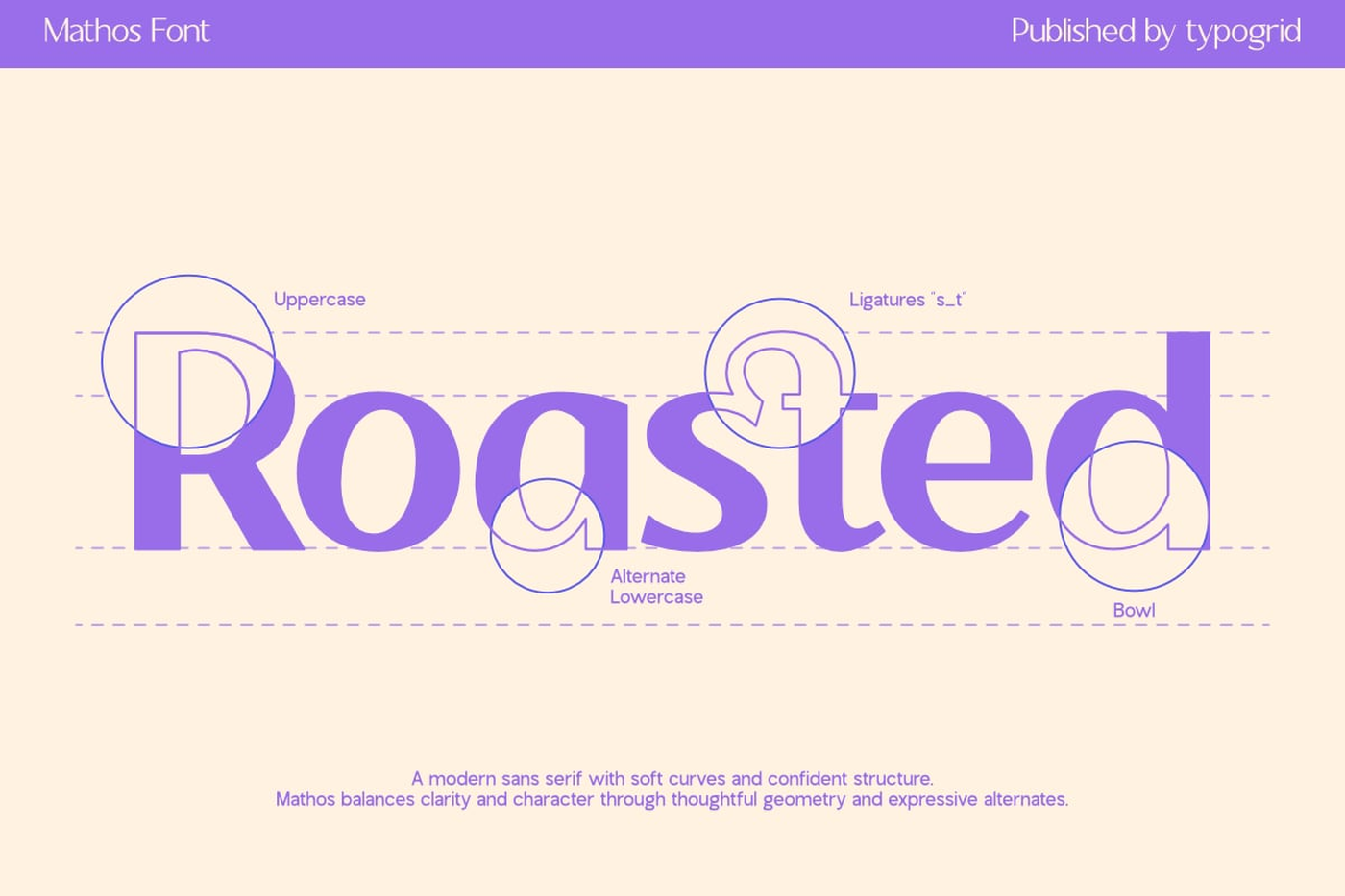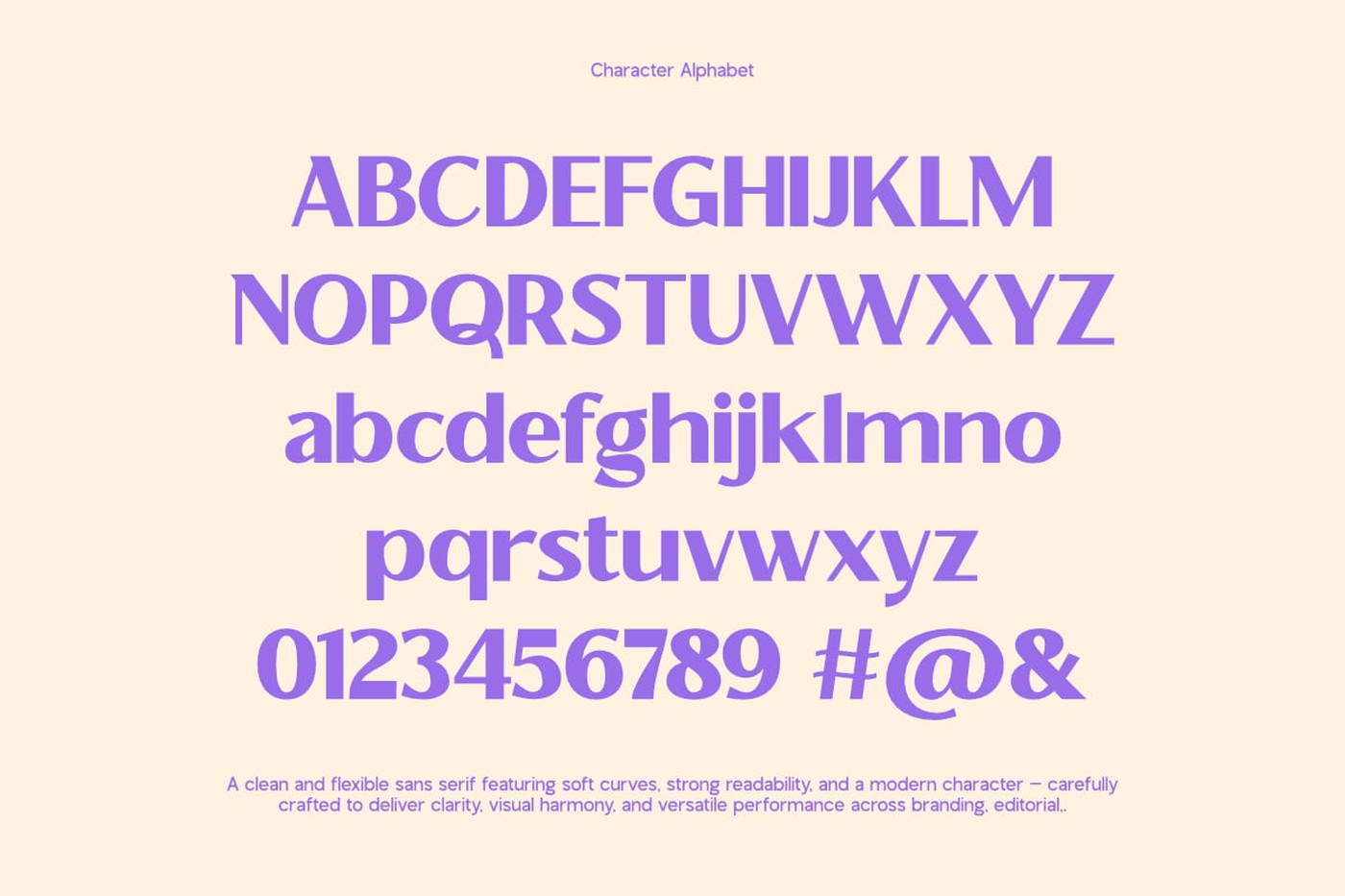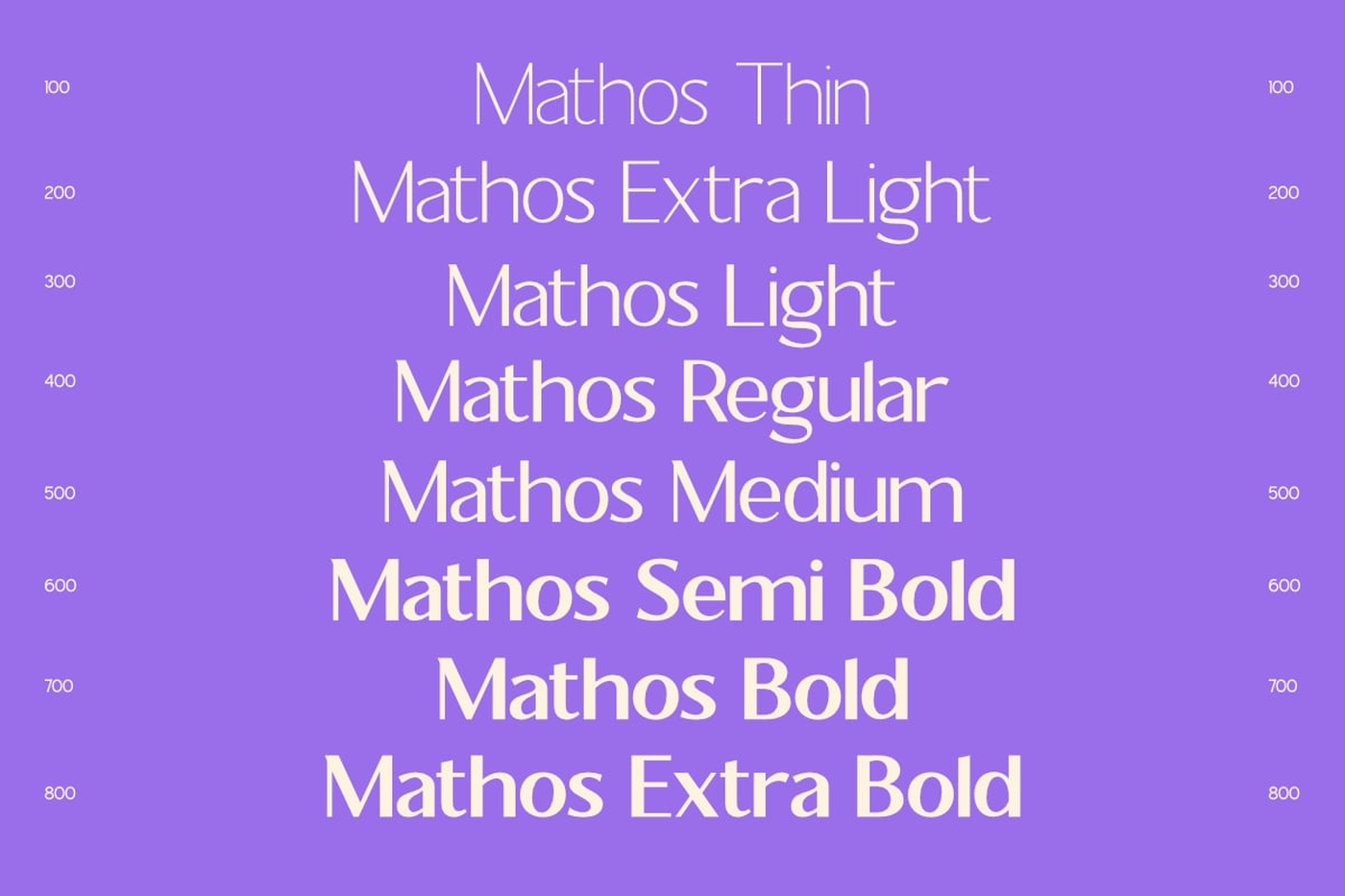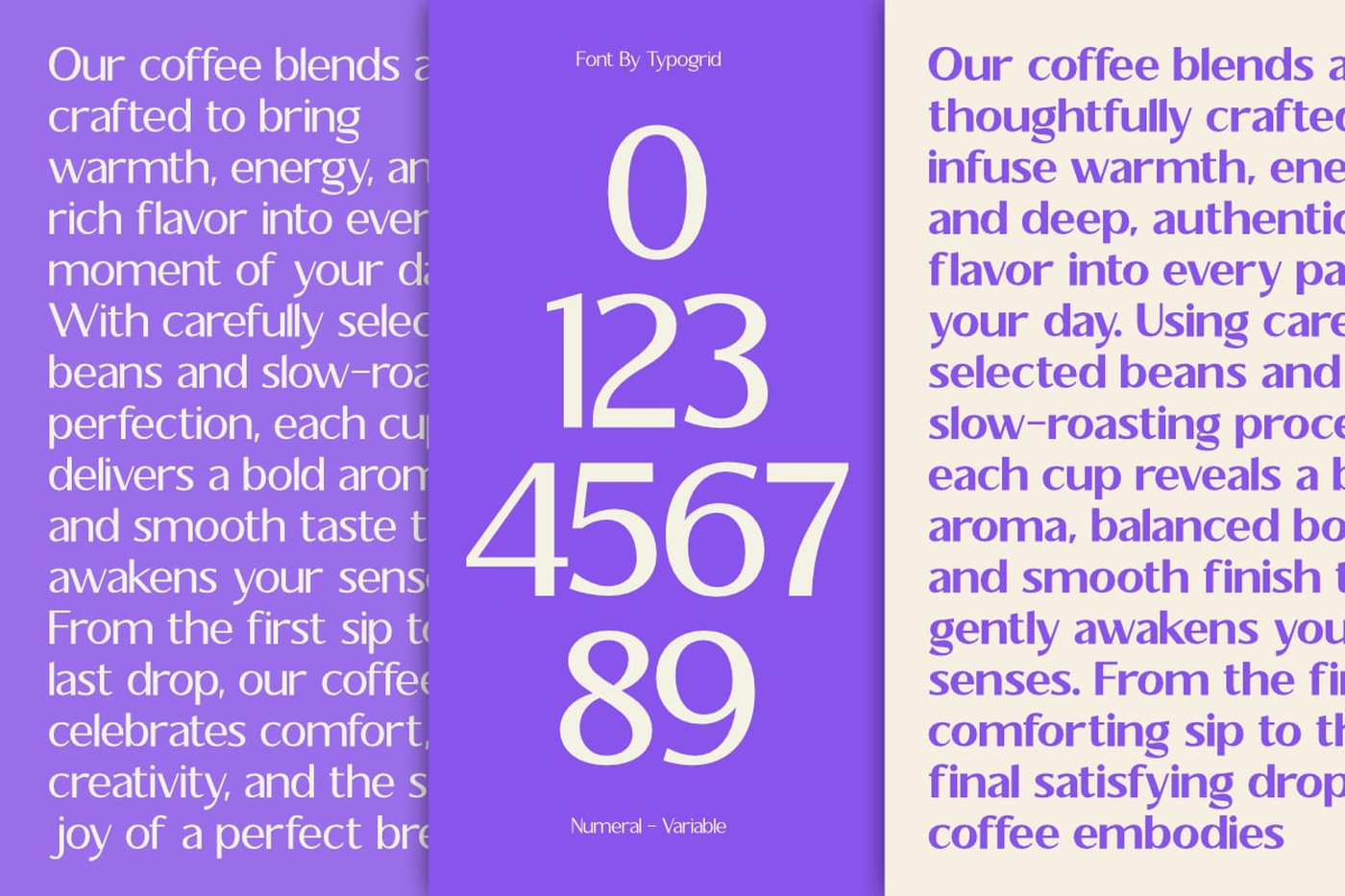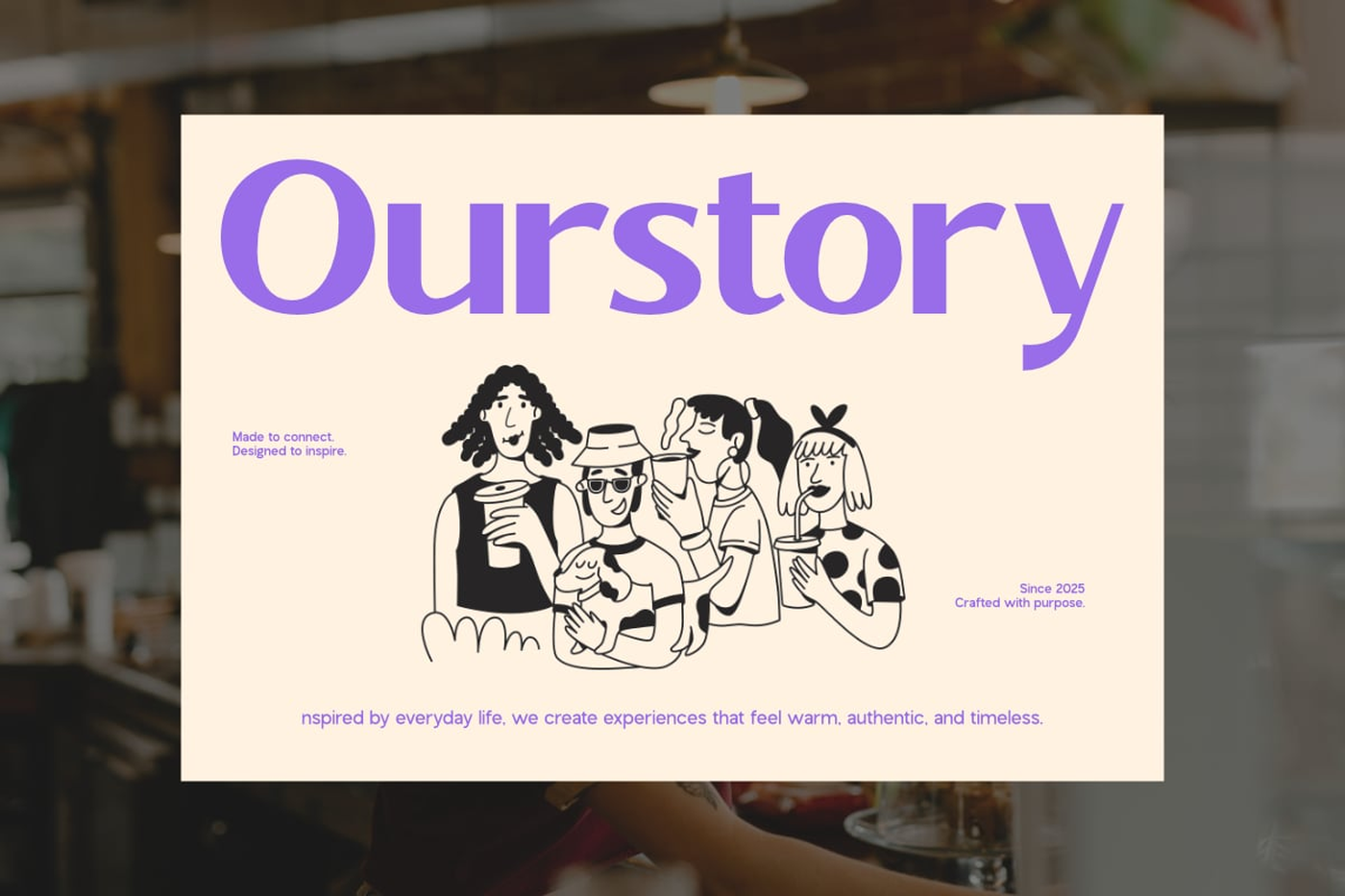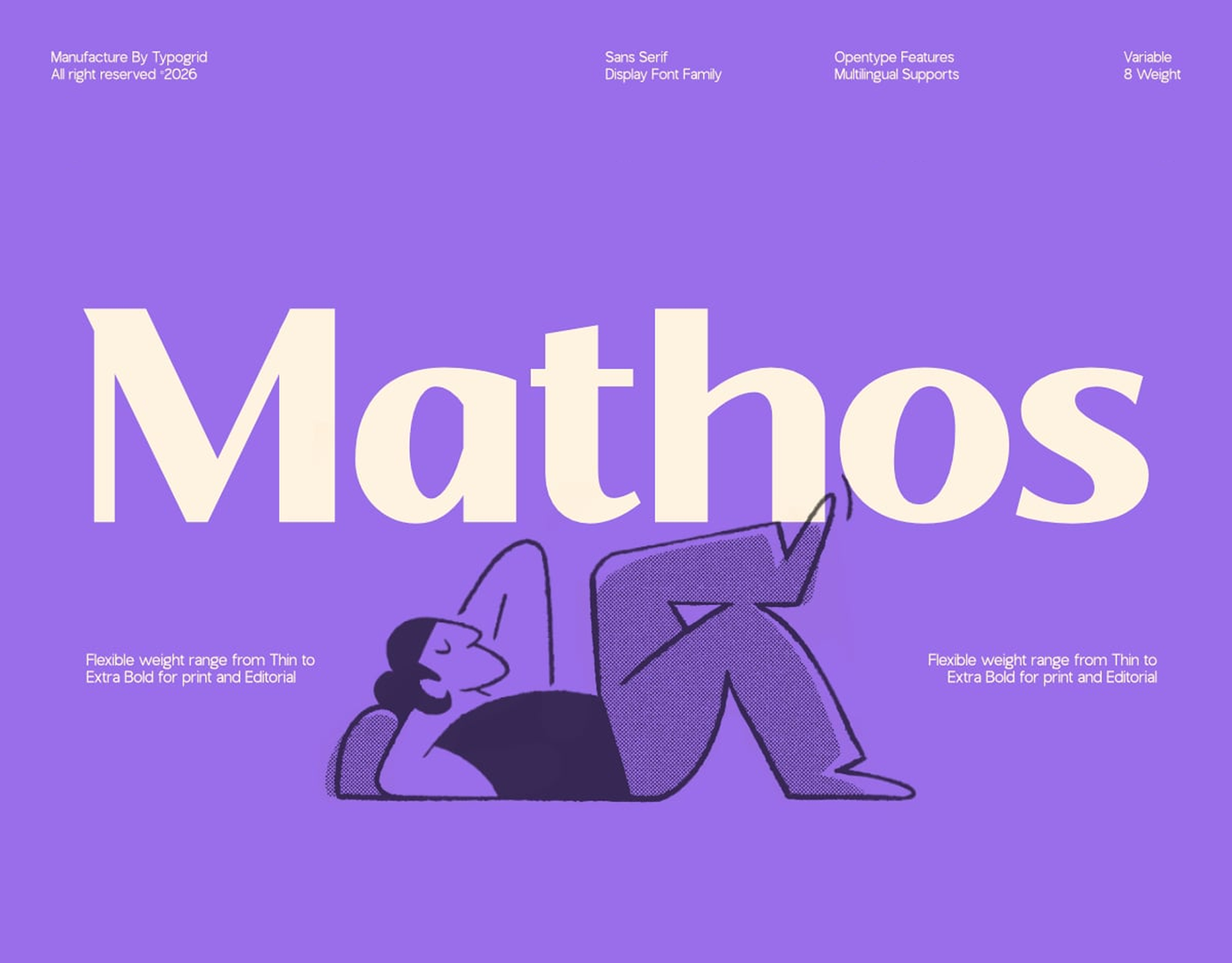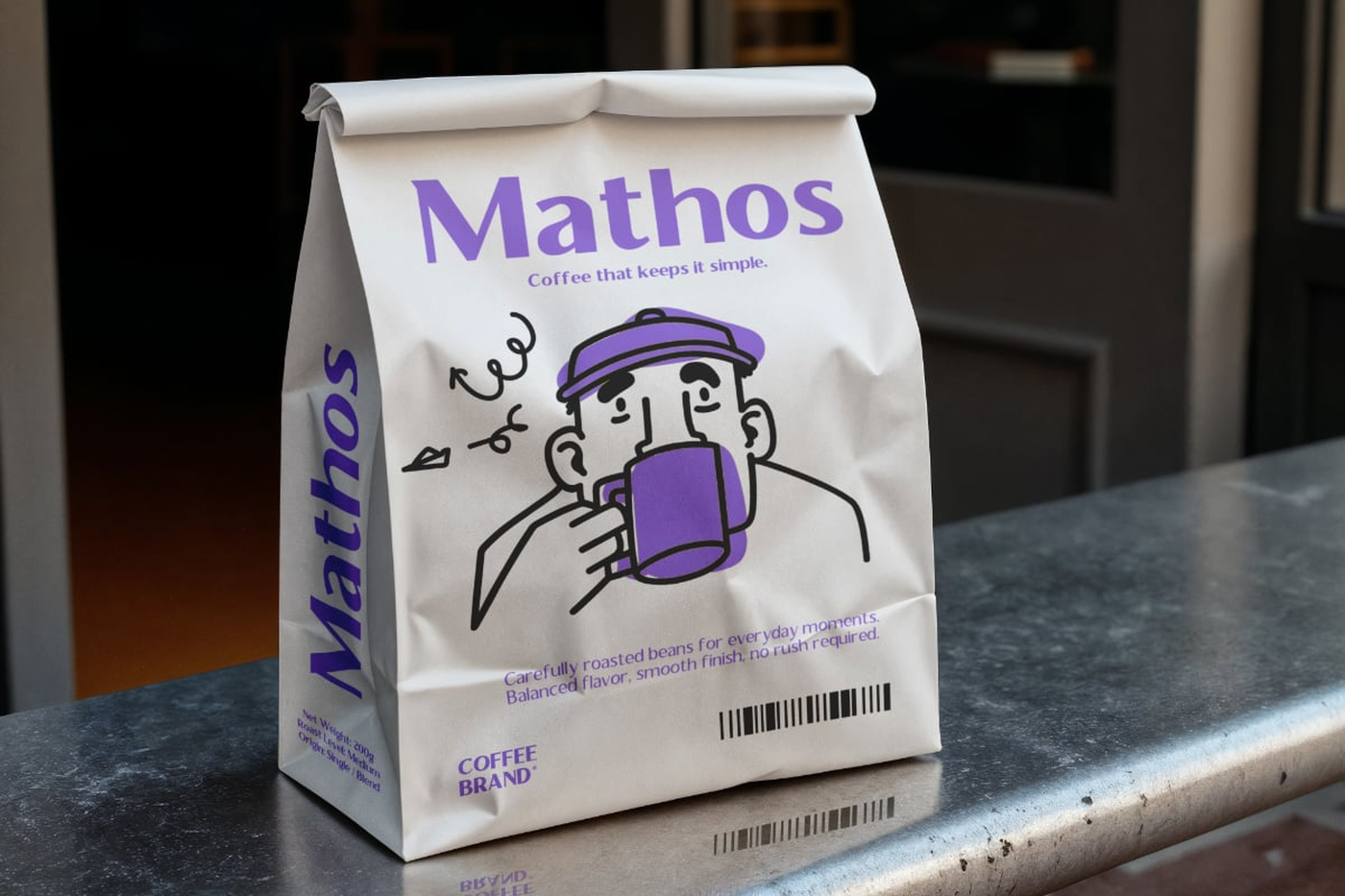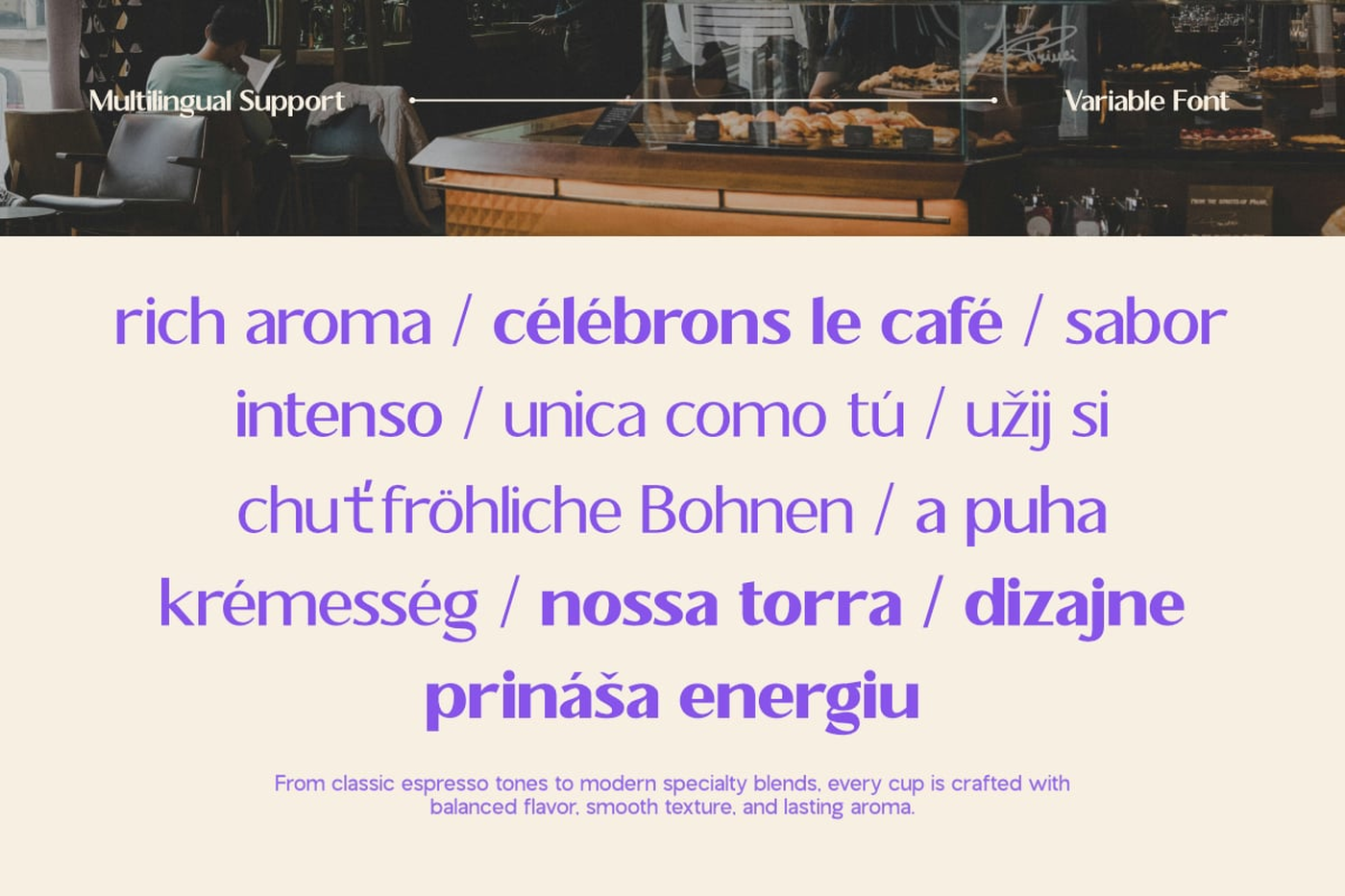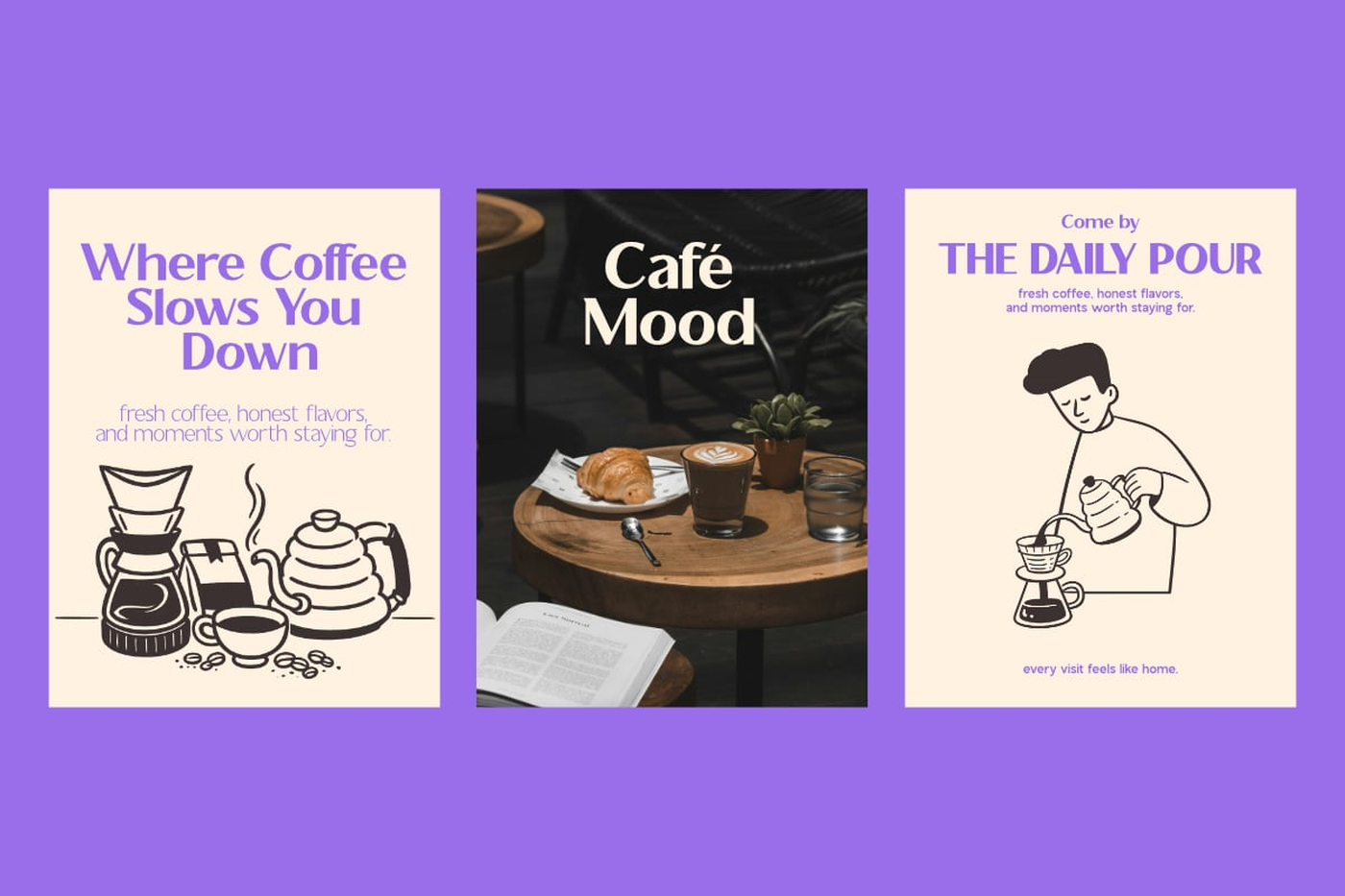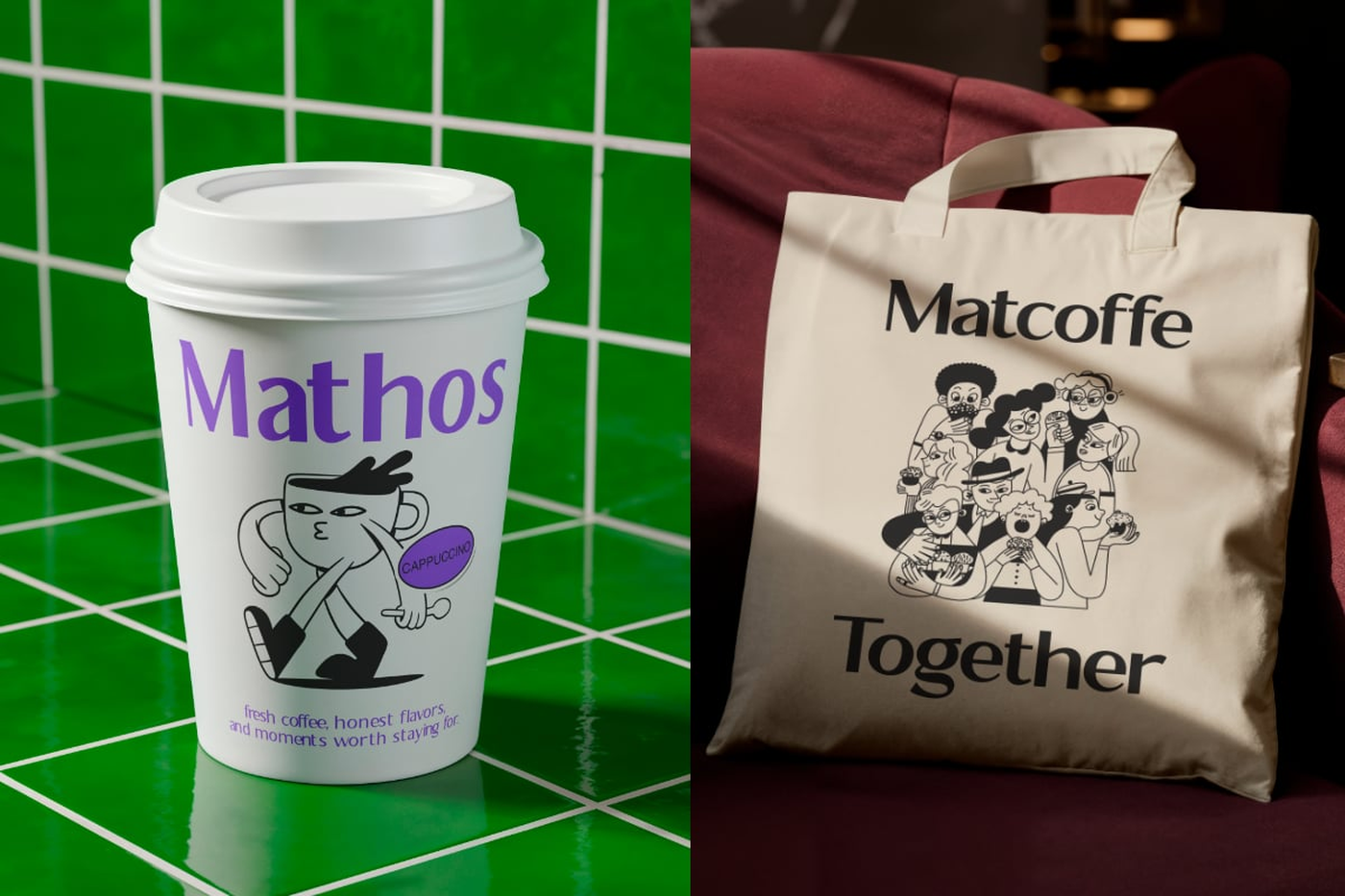
Mathos - Modern Display Sans Serif Font
Mathos is a modern display sans serif font designed for bold visual impact and clean readability. Built with strong geometry and smooth proportions, Mathos works perfectly for headlines, posters, branding, editorial layouts, and digital interfaces. With its flexible weight range and contemporary character shapes, Mathos adapts seamlessly across both print and digital mediamaking it a versatile choice for designers who value clarity and style.
Font: Mathos